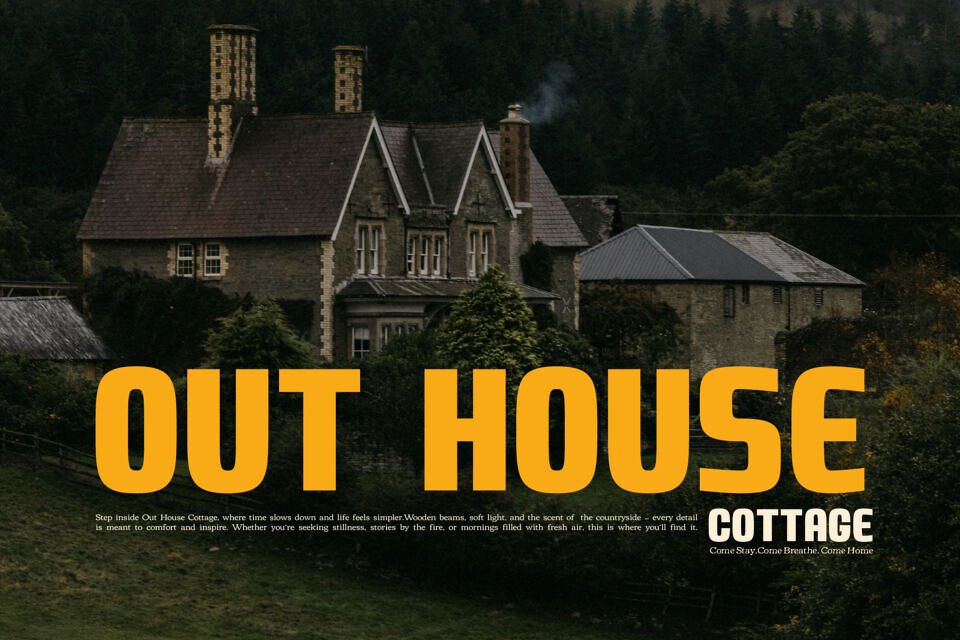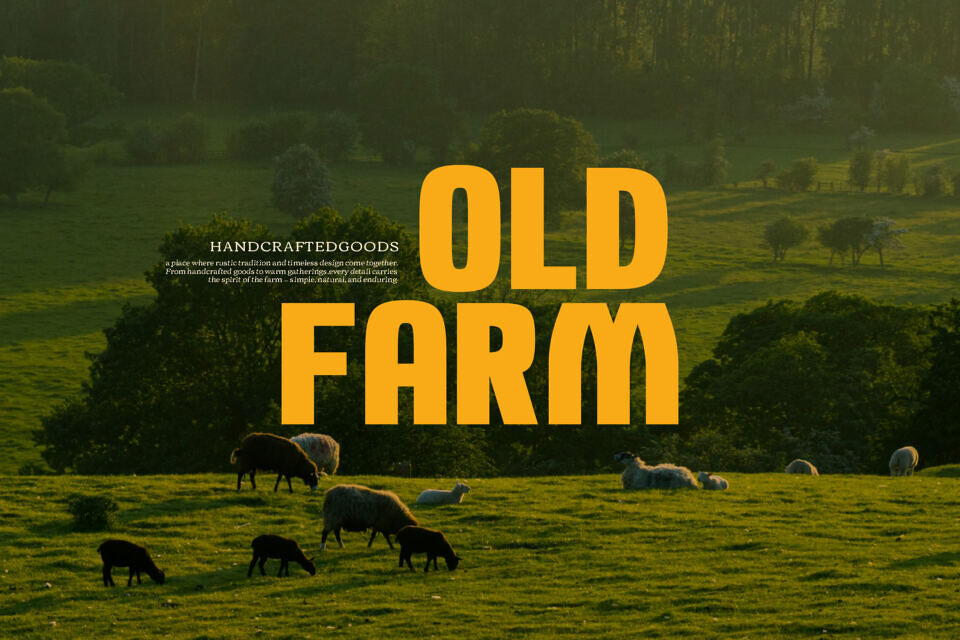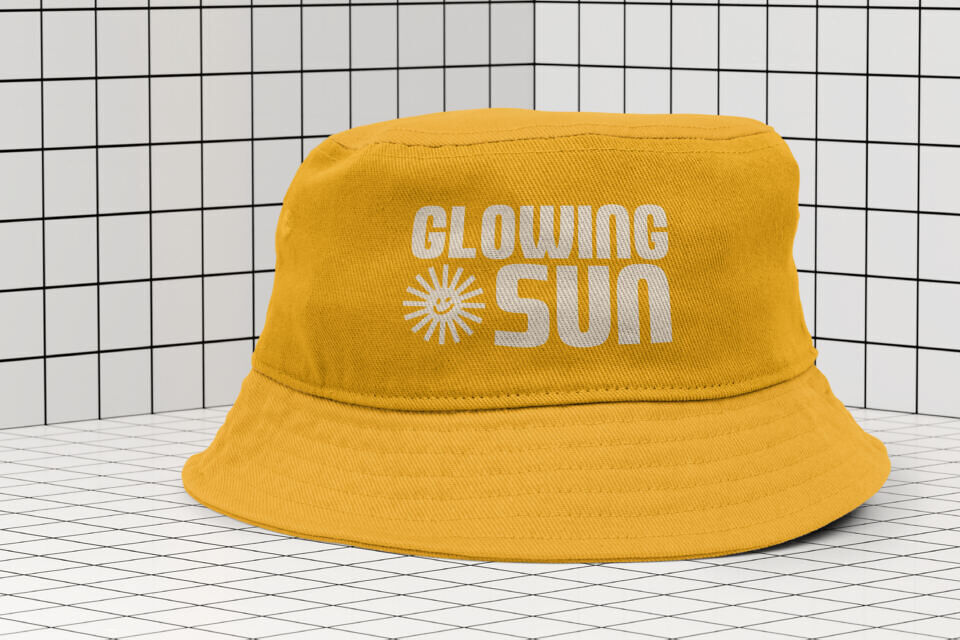
Worn Rural Font
Worn Rural is a Vintage Display from Gracetypestudio, suitable for any projects such as: logos, branding projects, homeware designs, product packaging, mugs, quotes, posters, shopping bags, t-shirts, book covers, name card, invitation cards, greeting cards, label, photography, watermark, special events, and all your other lovely projects that need a Vintage taste.